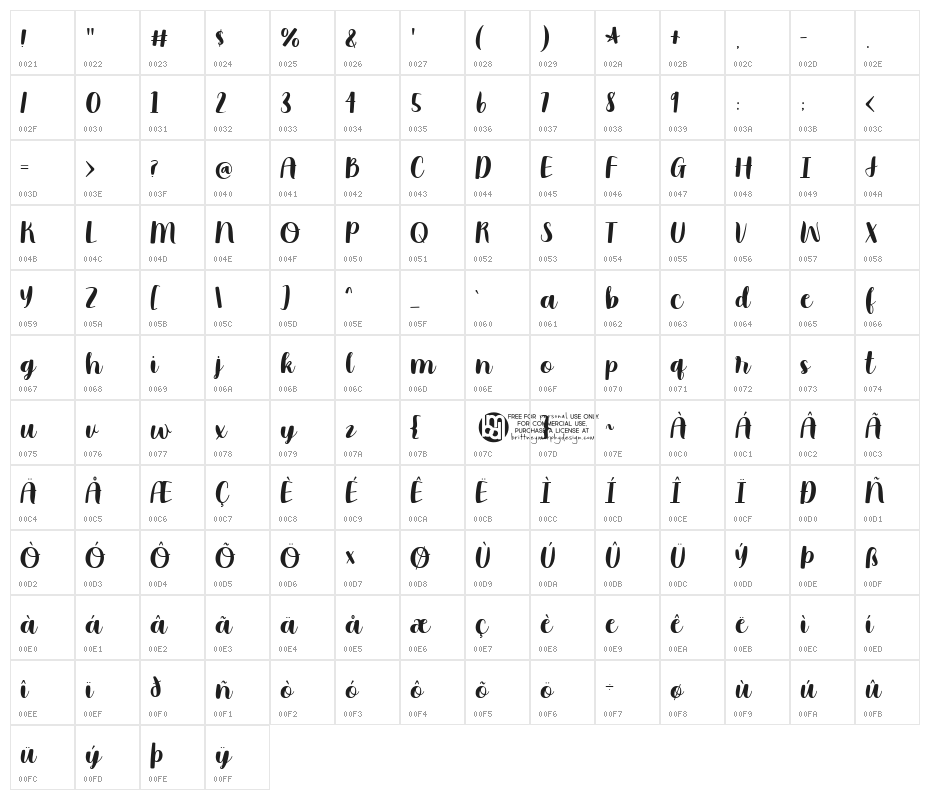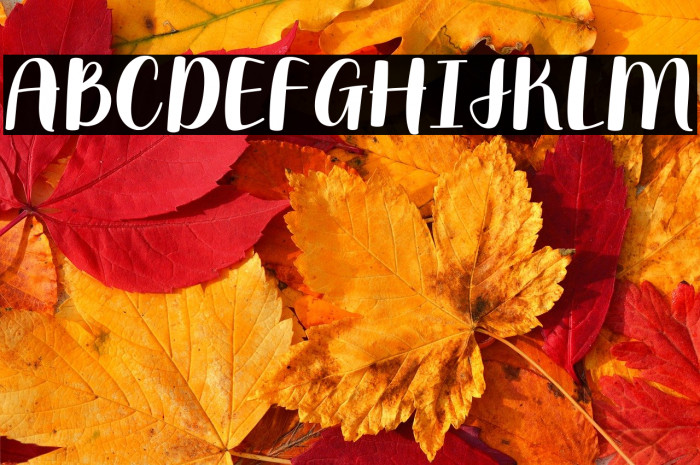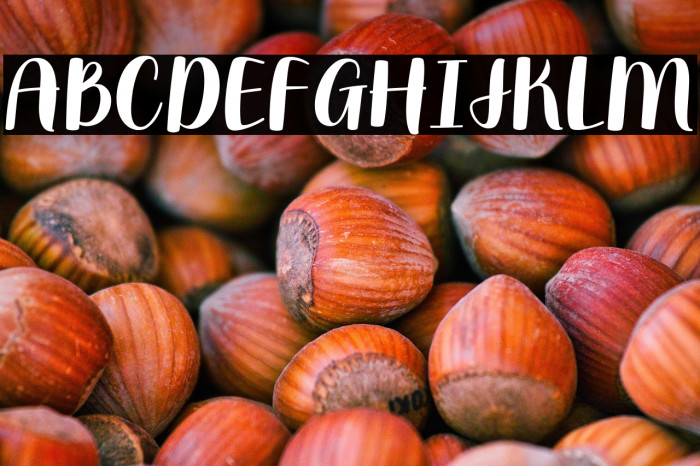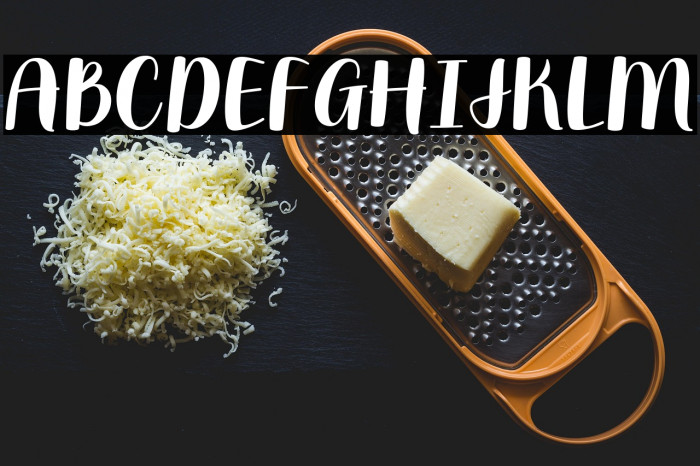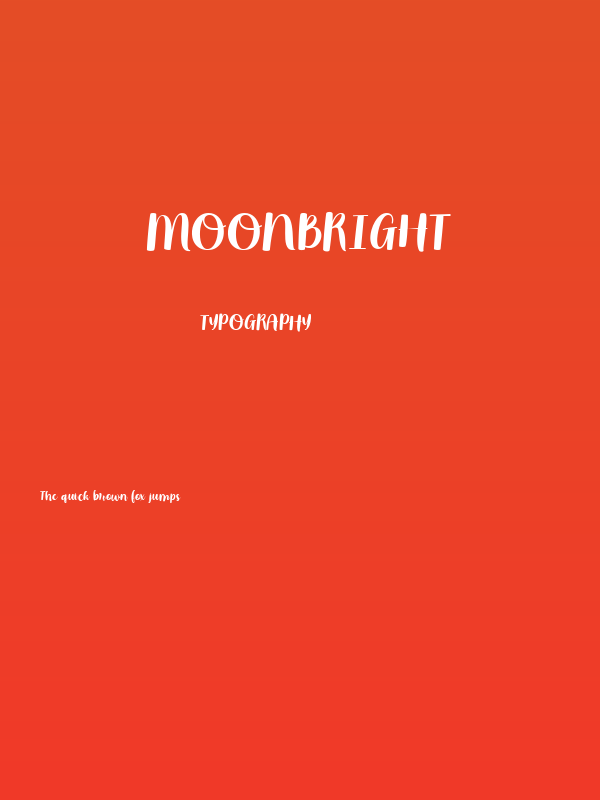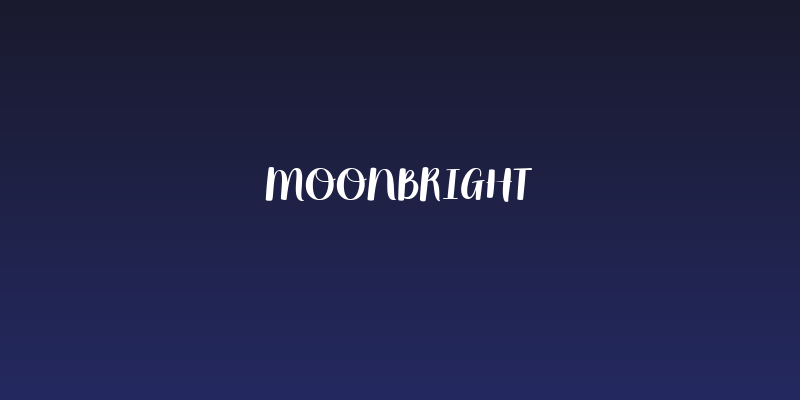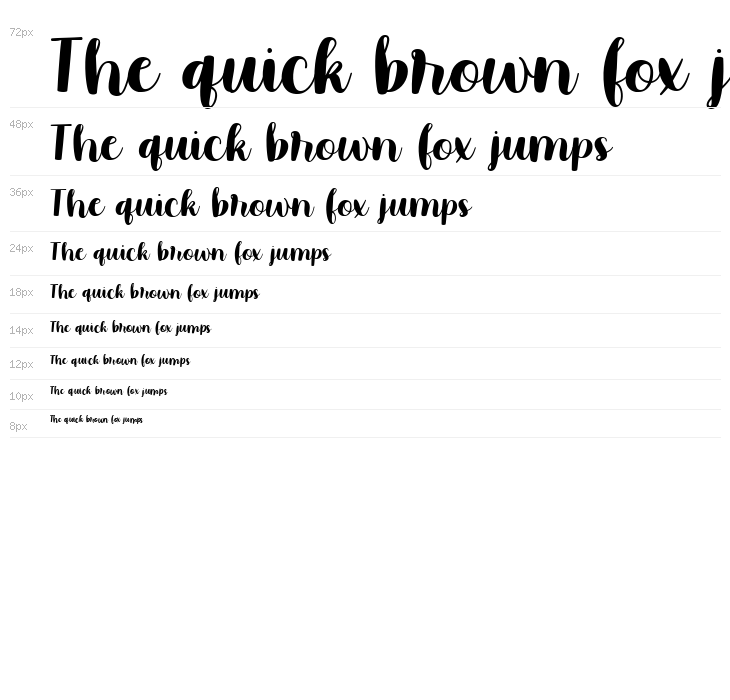
moonbright Font
moonbright Description
A bold, modern script font with smooth, flowing letterforms and a handwritten appearance. The strokes are thick and rounded, with a consistent weight and slight slant, giving it an energetic and friendly feel. Uppercase and lowercase characters are both highly legible, and the font includes a full set of numerals and punctuation.
| Overall Style | Modern, Decorative, Handwritten |
| Use Case | Headlines, Logos, Invitations, Posters |
| Proposed Projects | Greeting cards, invitations, branding, social media graphics, posters. |